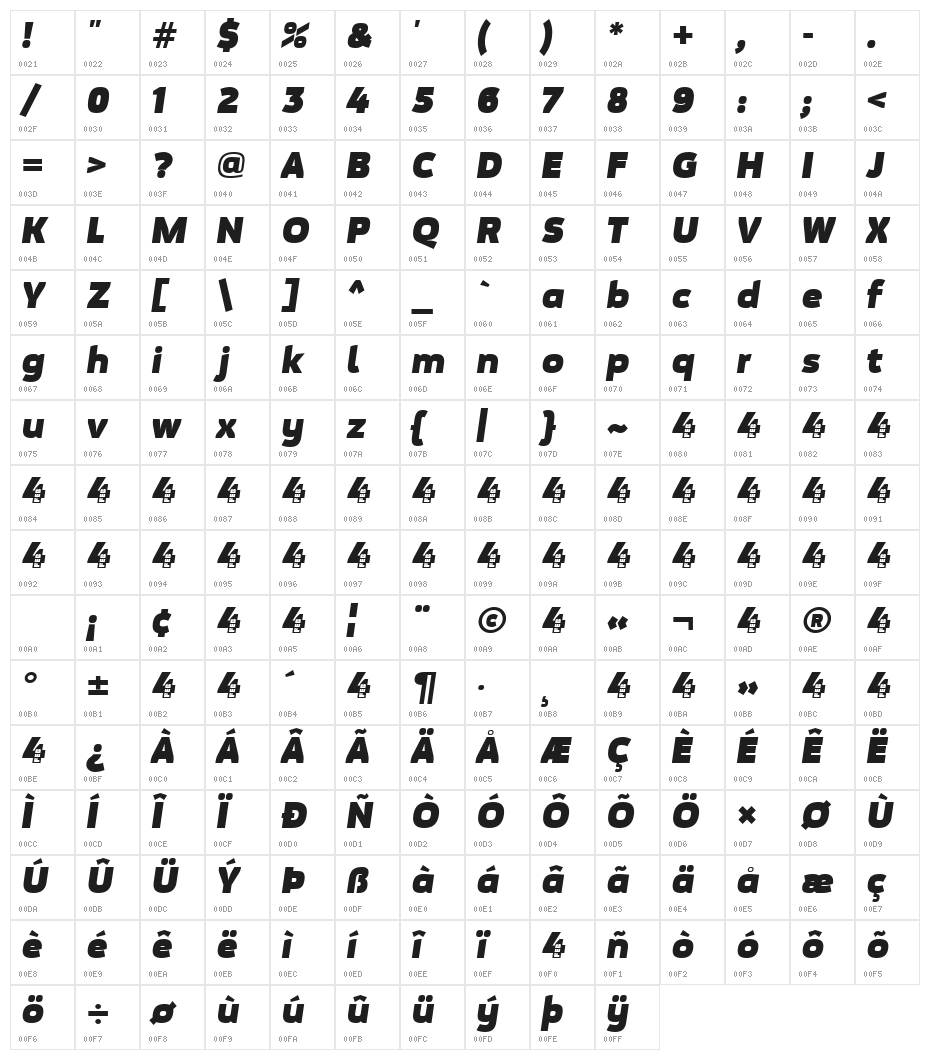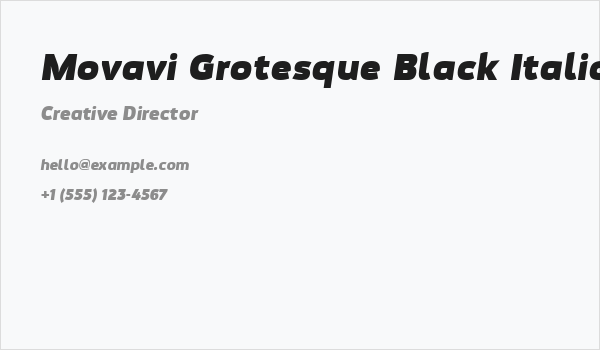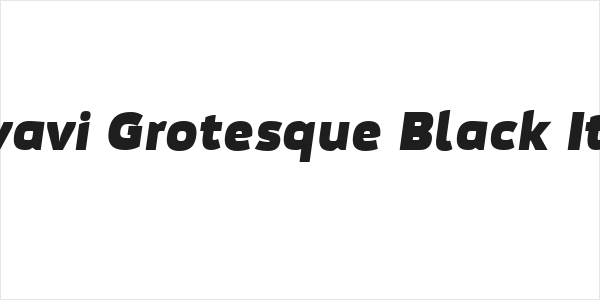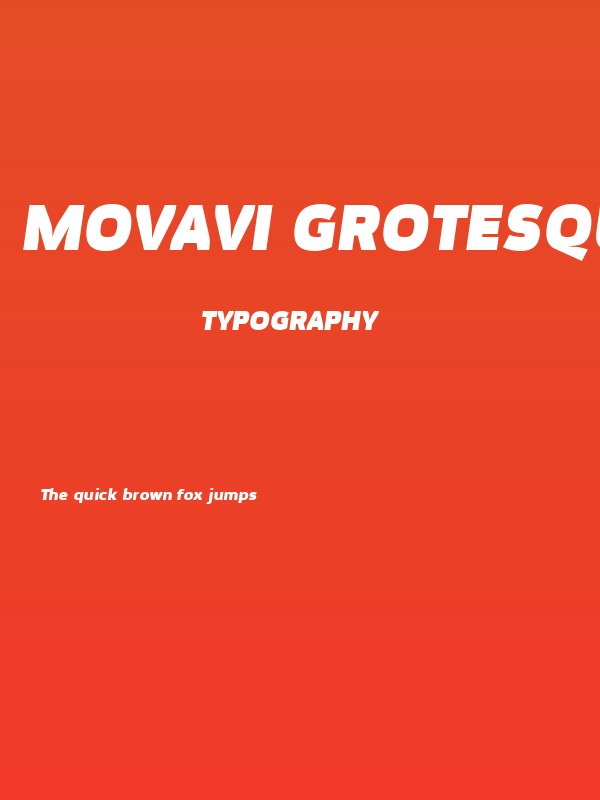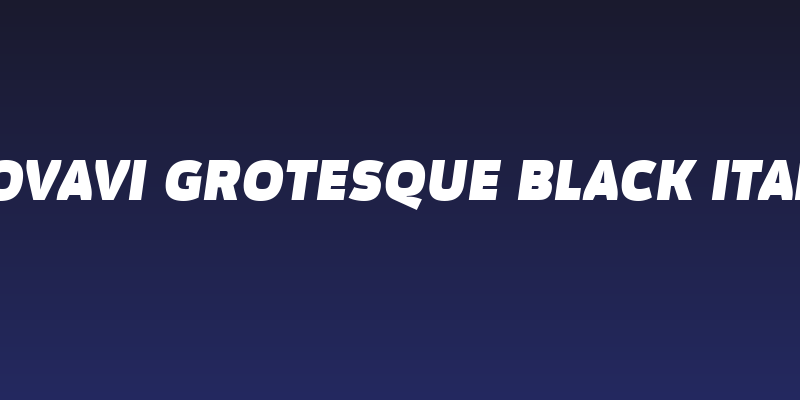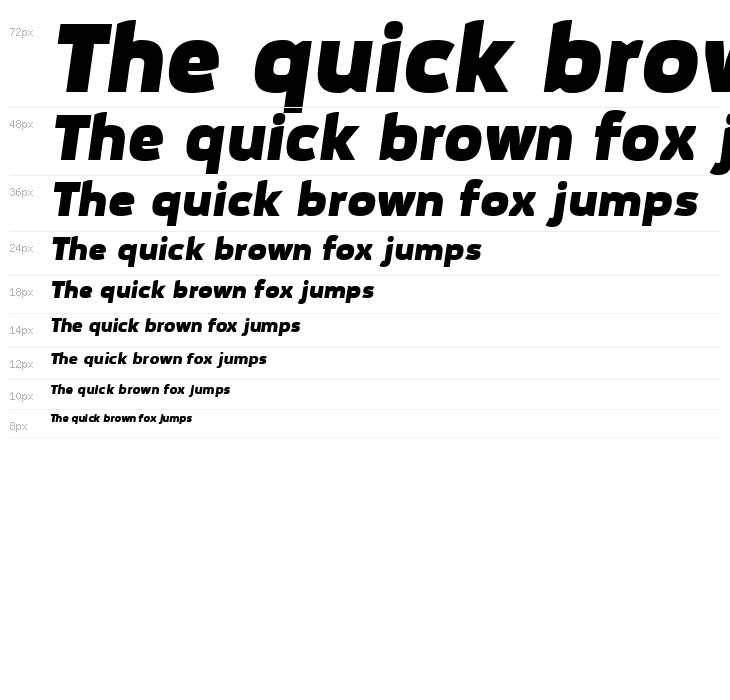
Movavi Grotesque Black Italic Font
Movavi Grotesque Black Italic Description
This font exhibits a bold and dynamic style with a strong presence. Its italicized form adds a sense of movement and energy, making it ideal for attention-grabbing designs. The characters are thick and robust, with a slight slant that enhances its modern appeal. The uppercase and lowercase letters maintain a consistent weight, providing a harmonious look across different text sizes. The numerals and special characters are equally bold, ensuring readability and impact. This font is well-suited for projects that require a contemporary and assertive typeface.
| Proposed Projects | Ideal for headlines, posters, branding, and advertising materials that need a strong visual impact. |